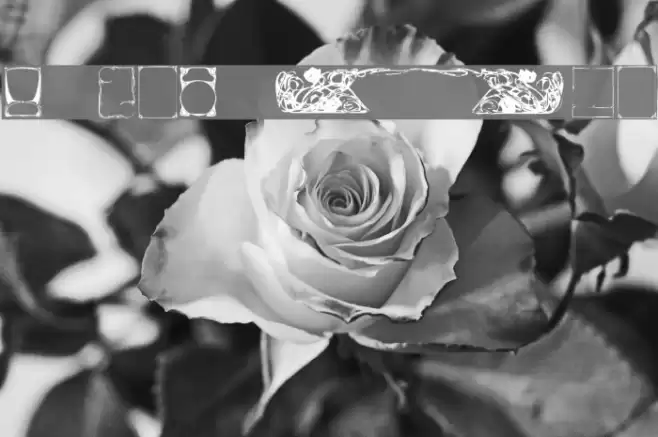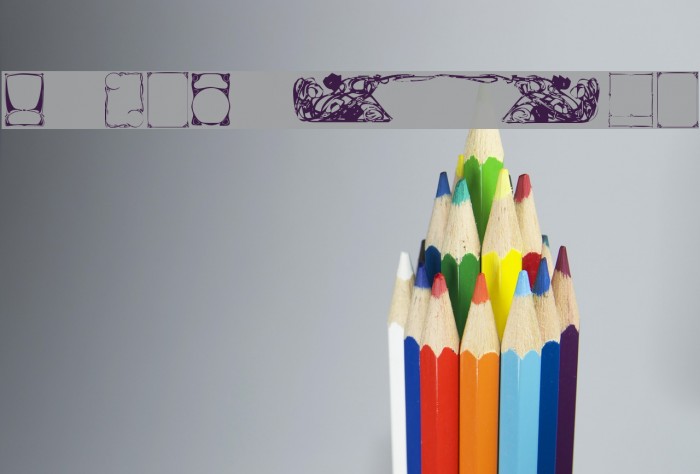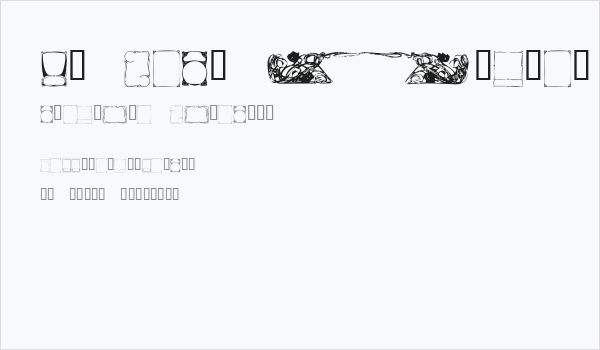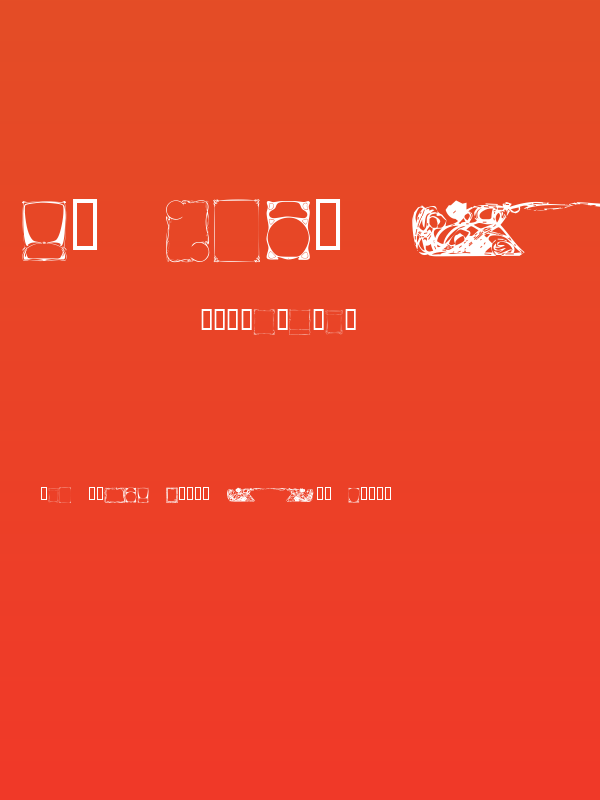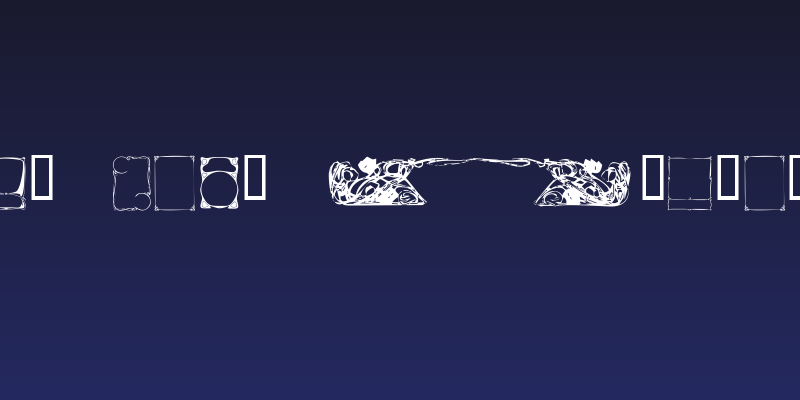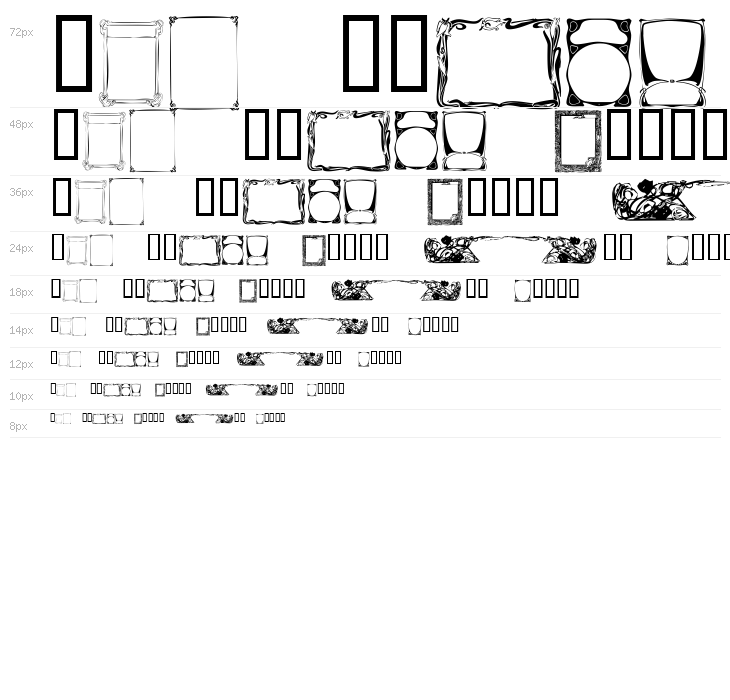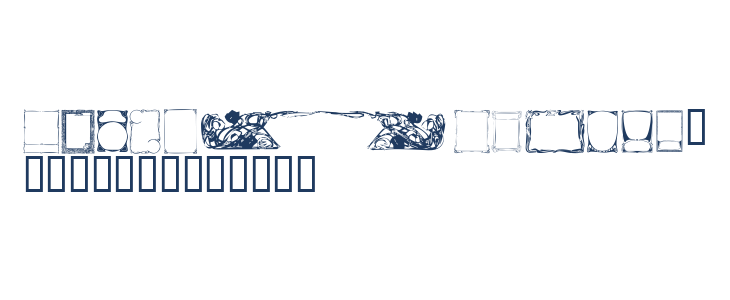
KR Deco Frames Font
KR Deco Frames Description
This set of decorative frames features intricate designs that blend classic and ornate elements. The frames are characterized by their elaborate patterns, including floral motifs and geometric shapes, which create a sense of elegance and sophistication. These frames are ideal for adding a touch of vintage charm to any project. The detailed craftsmanship is evident in the fine lines and curves, making them suitable for a variety of decorative purposes. The frames are versatile and can be used to enhance invitations, certificates, or any design that requires a refined and artistic touch.
| Use Case | Decorative elements |
| Proposed Projects | Ideal for invitations, certificates, and decorative design projects. |